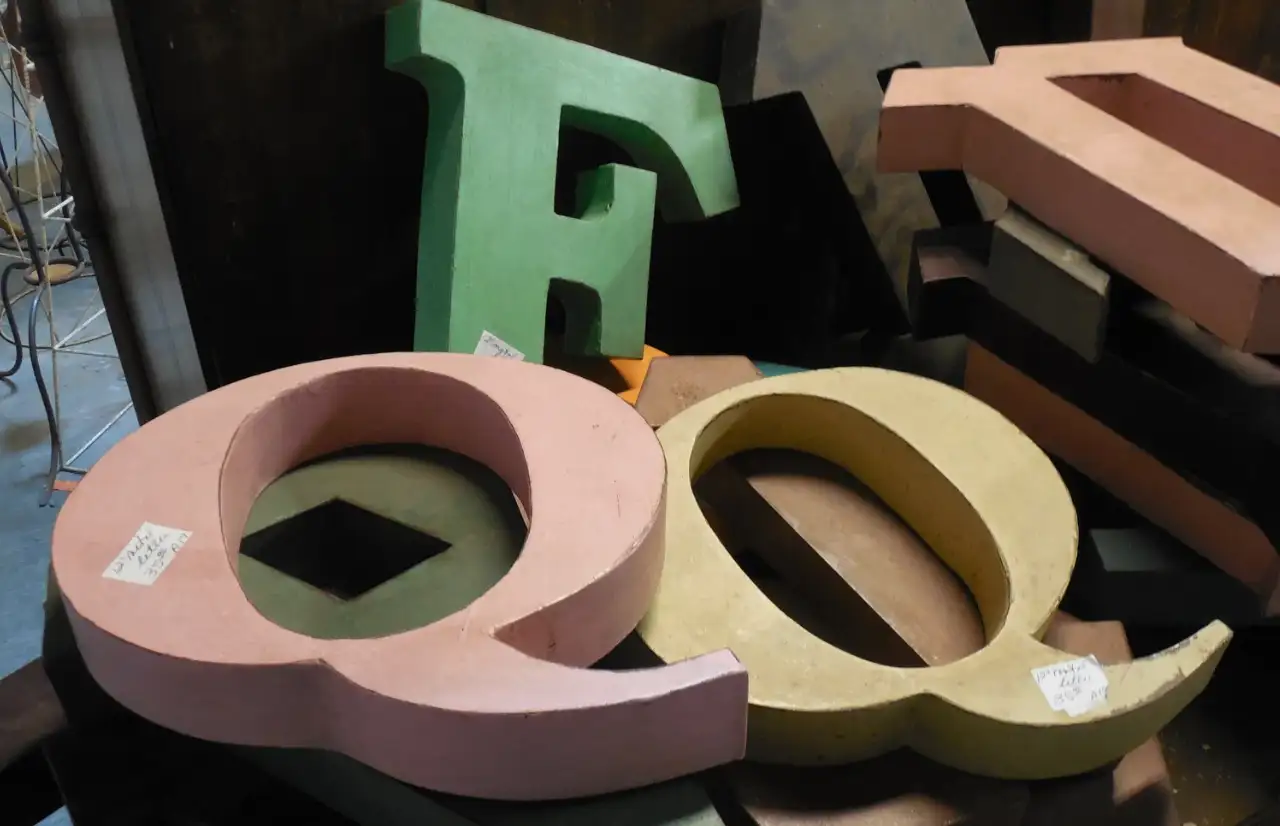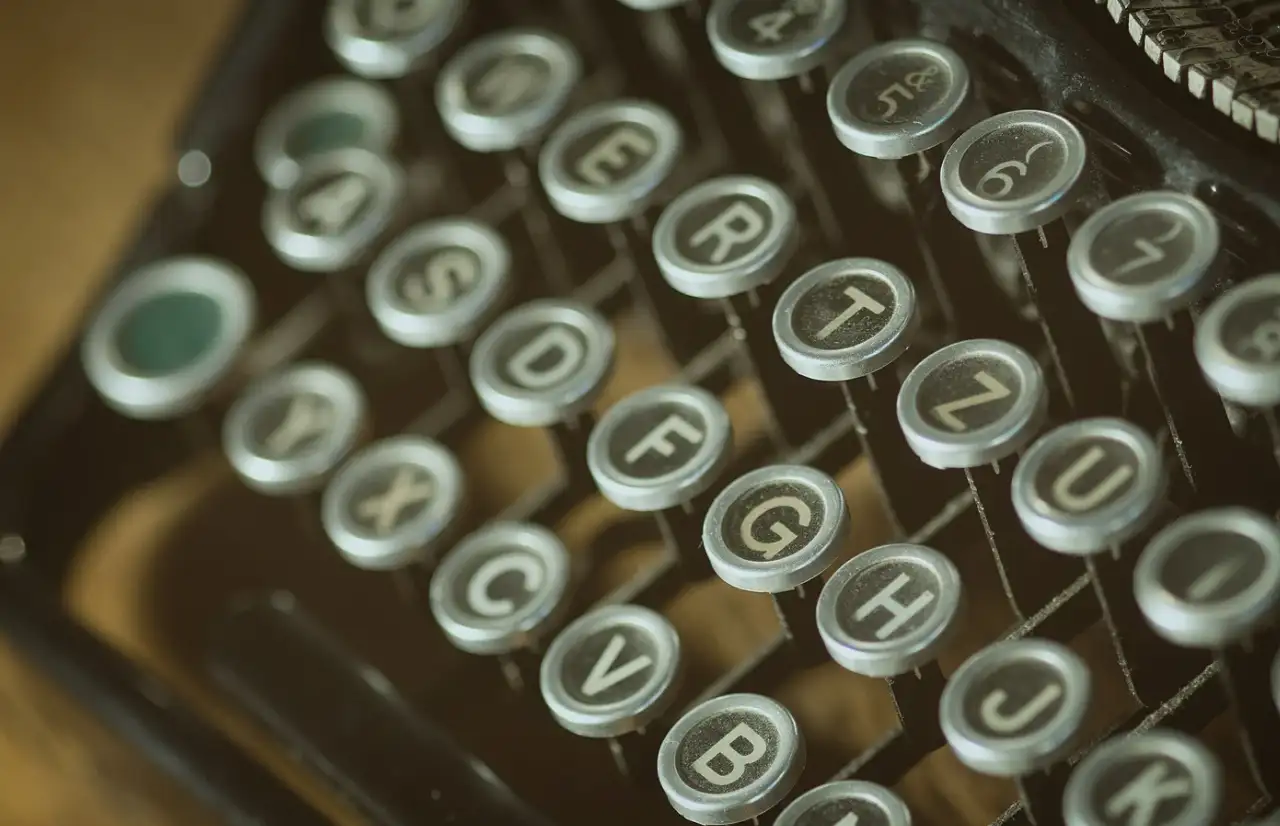
Trendy Typography: Discover the Best Web Fonts for 2025
What is the best web font? How to find the best web fonts that hold good readability? You can check out this guide to find out the best web fonts in 2025!
In the process of building a website, you may rack your brains for visual design, carefully select pictures, optimize color schemes, consider the position of each button, and even think over and over about the title sentence. But have you ever seriously considered a key detail often overlooked that can catch the user's attention at first glance: web font? A well-chosen web font enhances readability and shapes your website’s first impression, influencing user trust and brand perception.
In 2025, web font trends are evolving. Modern users demand fonts that blend personality, aesthetics, and brand alignment. The right web font conveys your brand’s attitude, sparks emotional connection, and ensures seamless performance across devices. Yet, with countless options, choosing the perfect font can feel overwhelming. Which one balances style, readability, and functionality for your project?
Don’t worry—we’ve done the research for you. In this article, we’ll explore the best web fonts for 2025, helping you create a vibrant, brand-aligned website. Ready to transform your design? Dive into the world of web fonts and make your site stand out!
What is a font?
Before we delve into the popular fonts, it is necessary to clarify a fundamental but often overlooked question: What exactly is a font? Simply put, a font is a visual representation of text. When you see those words on a website, brand logo, advertisement, poster, app interface, or even product packaging, you actually see not just "text" but designed text—that is, fonts. Fonts include visual features such as letter shape, line thickness, character spacing, line spacing, height ratio, etc. These features are combined to shape the unique character of each font.
It can be said that fonts are not only a carrier for conveying information but also a megaphone for emotions, atmosphere, and brand attitude. So why is the font so important? Because it directly affects user perception and behavior. When users first enter your website, before they have time to read the content carefully, they have already "read" the emotions conveyed by the font in their subconscious. Choosing a suitable web font is like choosing the "tone" and "dressing style" of your brand. You can use one font to express friendliness and ease or another font to appear authoritative and professional. The wrong font choice may make visitors feel uncomfortable, confused, or even lose trust and thus leave your website.
In other words, the choice of font can make or break a design. In this era of content overload and scarce attention, it often only takes a few seconds for users to decide whether to continue browsing your website. Fonts are the first visual signal they receive. What kind of first impression do you want to create? In what kind of context do you want users to connect with the content? The right font can not only strengthen your message delivery but also help users "read more comfortably" visually, thereby improving the website's overall usability and conversion rate.
How to choose the right font?
Choosing the best web font should help you tell a good story, improve user experience, and even shape your brand personality. So, how should you choose? Don't worry!
The following key points can help you easily sort out your thoughts:
Readability
If your text is as difficult to understand as a riddle, users will turn away immediately, whether it is a big title, a body paragraph, or a few words on a button.
Functional matching
Different design projects have completely different font requirements. The font needs to be consistent with your content, design style, and reader expectations. Layout is also critical. Too-thin fonts may not be clear on a dark background, while too-thick fonts may break a small button.
Maintain consistency
Consistency can build trust and allow users to focus on the content itself. It is recommended to choose a font family that includes different styles such as bold, italic, light, and regular. This way, you can flexibly match according to your needs, and the overall style will not deviate.
Reflect brand personality
The best web font can help you silently convey emotions and attitudes. Choosing a font that reflects your brand’s tone will help users form an impression and emotional connection with you faster.
Cross-device adaptability
Don’t forget that users may now access your website through mobile phones, tablets, laptops, and even TVs. A good font must be clear and easy to read on all screens.
Consider accessibility
Consider the accessibility of the font to all users, including the visually impaired. Accessible design is not a bonus but a basic respect. If you care about your users, then you should care about whether they can read your website smoothly.
Consider scalability
A good font should be stable at all sizes. Especially today, when responsive design is becoming more and more popular, fonts must have good scaling capabilities.